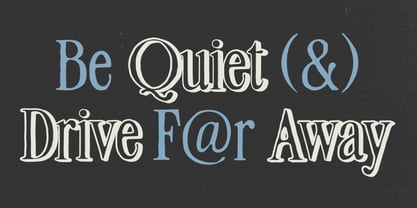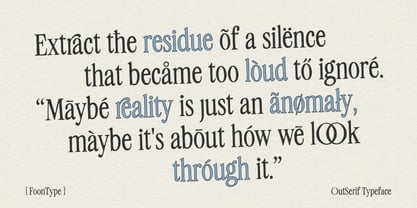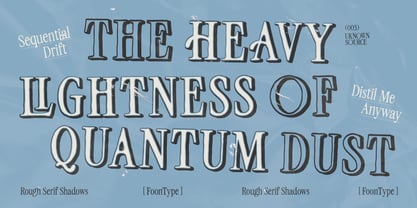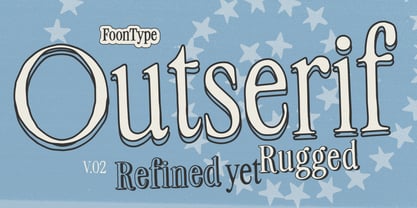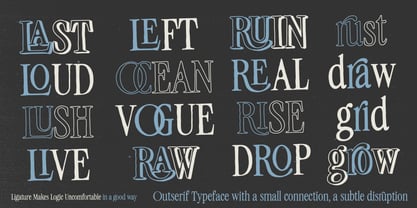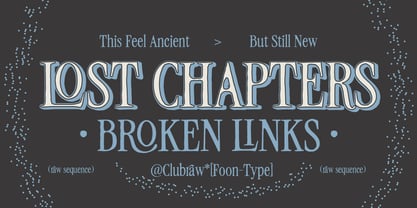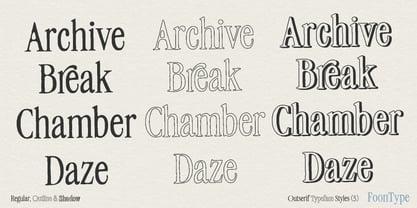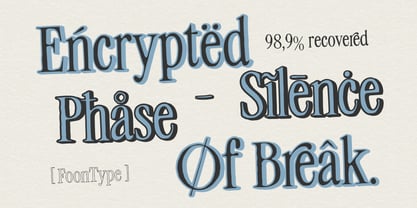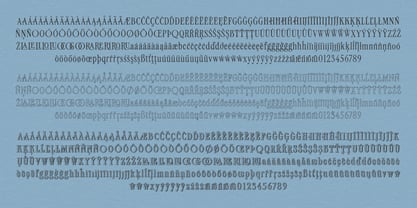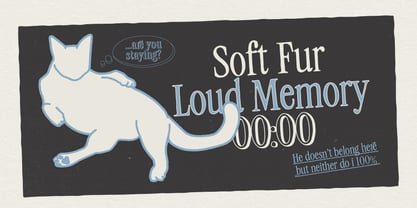
FN Outserif
von Typefoon
Die Schriftfamilie FN Outserif wurde von Steve Laorence entworfen und von Typefoon veröffentlicht. FN Outserif enthält 3 Stile und Familienpaketoptionen. Mehr über diese Familie
Outserif is a refined yet rugged display typeface that balances elegance with subtle imperfection. It combines classical serif proportions with subtle irregularities, creating a distinctive harmony between precision and organic distortion. Perfect for editorial layouts, magazines, posters, branding, packaging, headlines, and creative projects seeking a sophisticated yet unconventional character.
Designer: Steve Laorence
Foundry: Typefoon